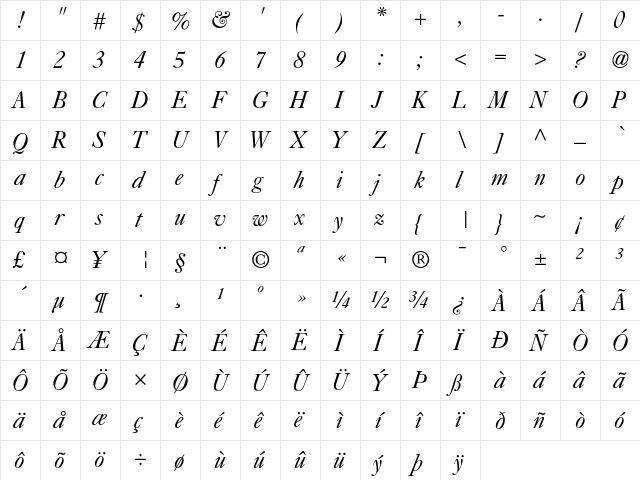
Caslon 540 Italic
Design Context for Caslon 540 Typeface
Caslon 540 is a composed and adaptable typeface that performs quietly and consistently across a wide range of design contexts. The slanted form adds forward momentum and visual energy.
Pro Tip: Use Caslon 540 for emphasis, pull quotes, and subheadings where its slanted energy can add rhythm to the layout.